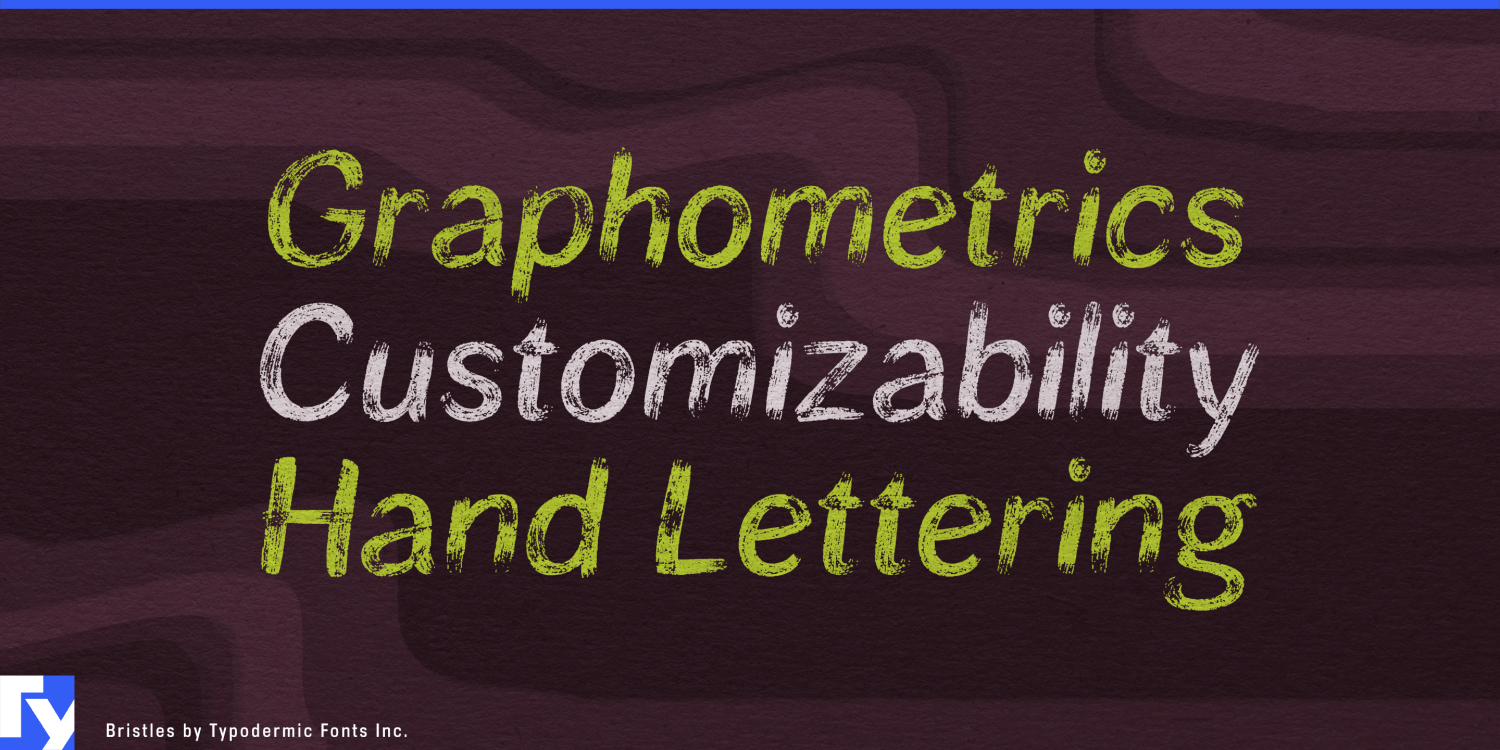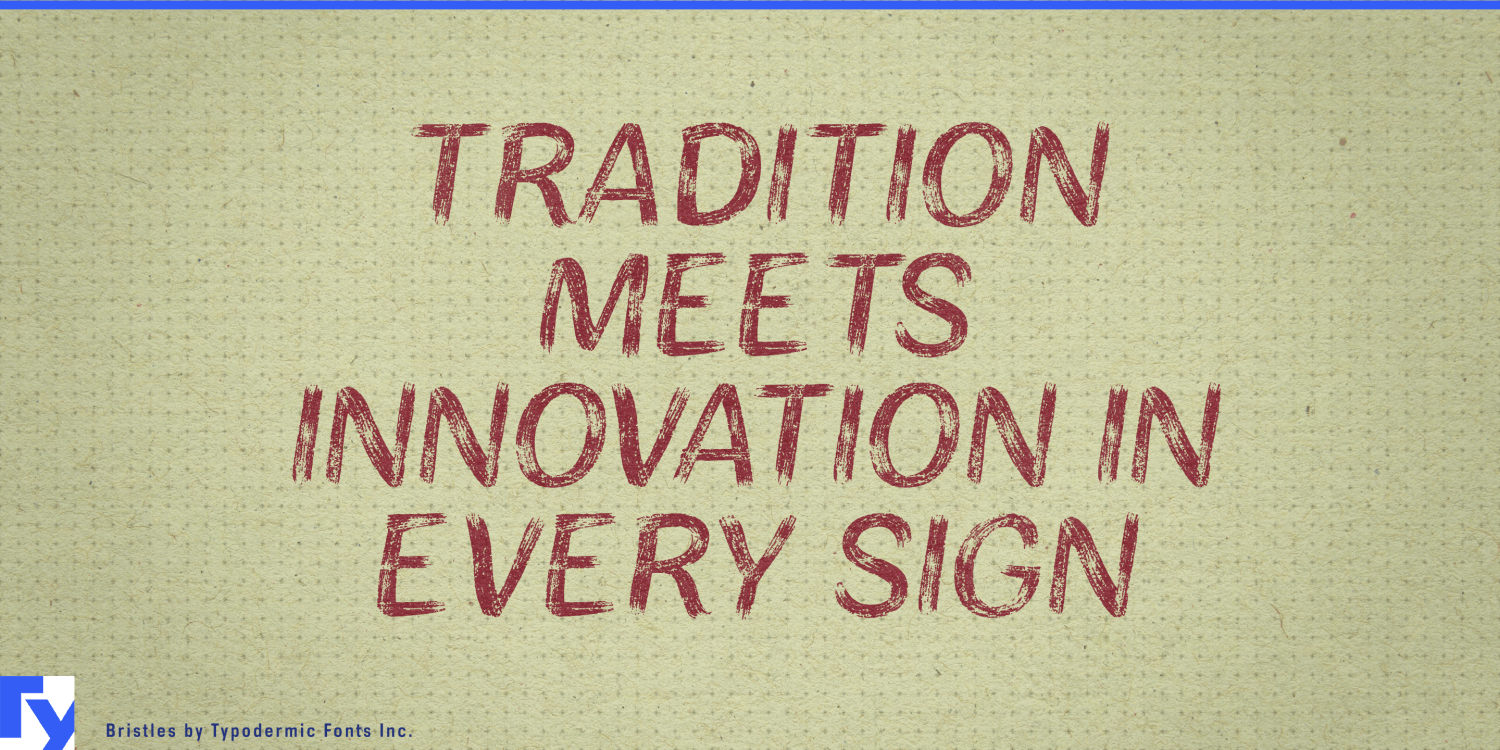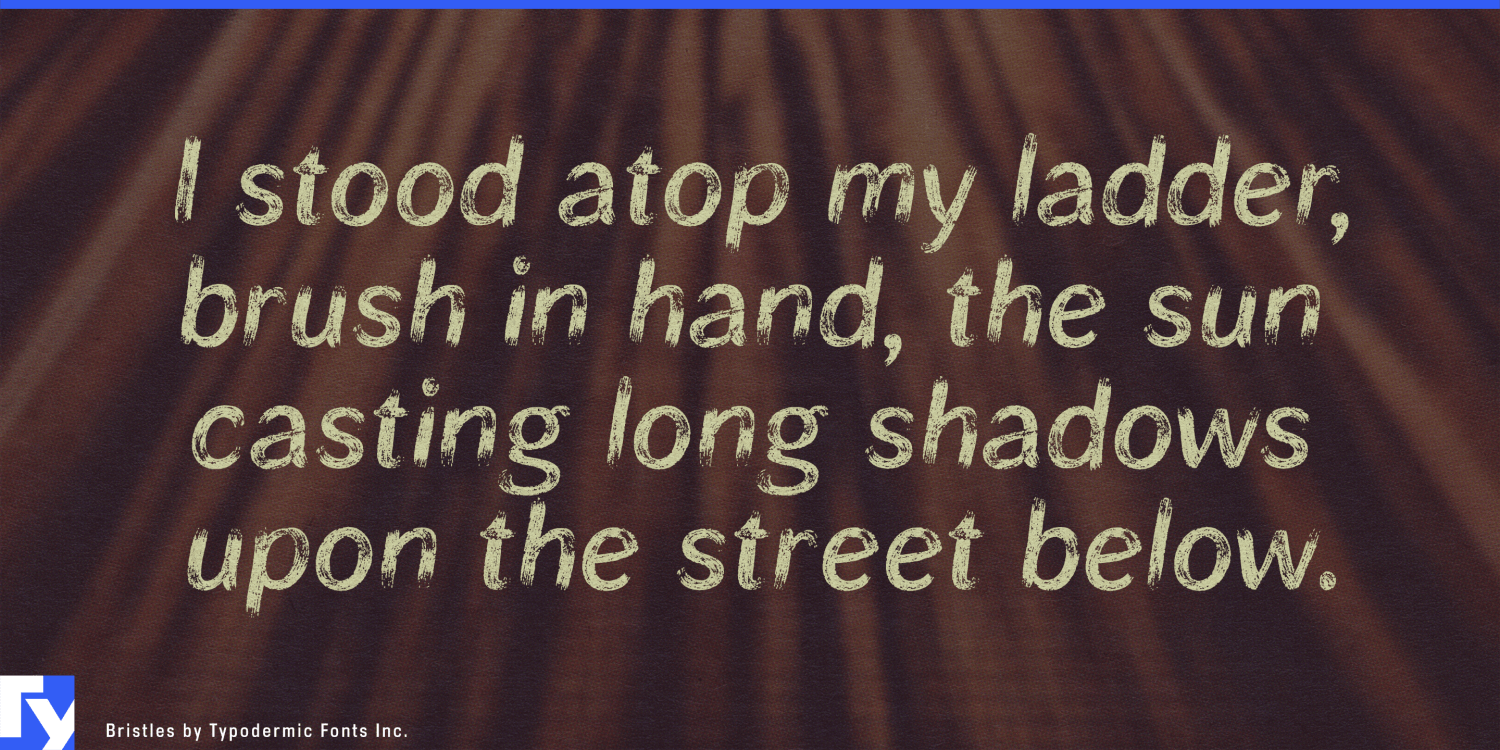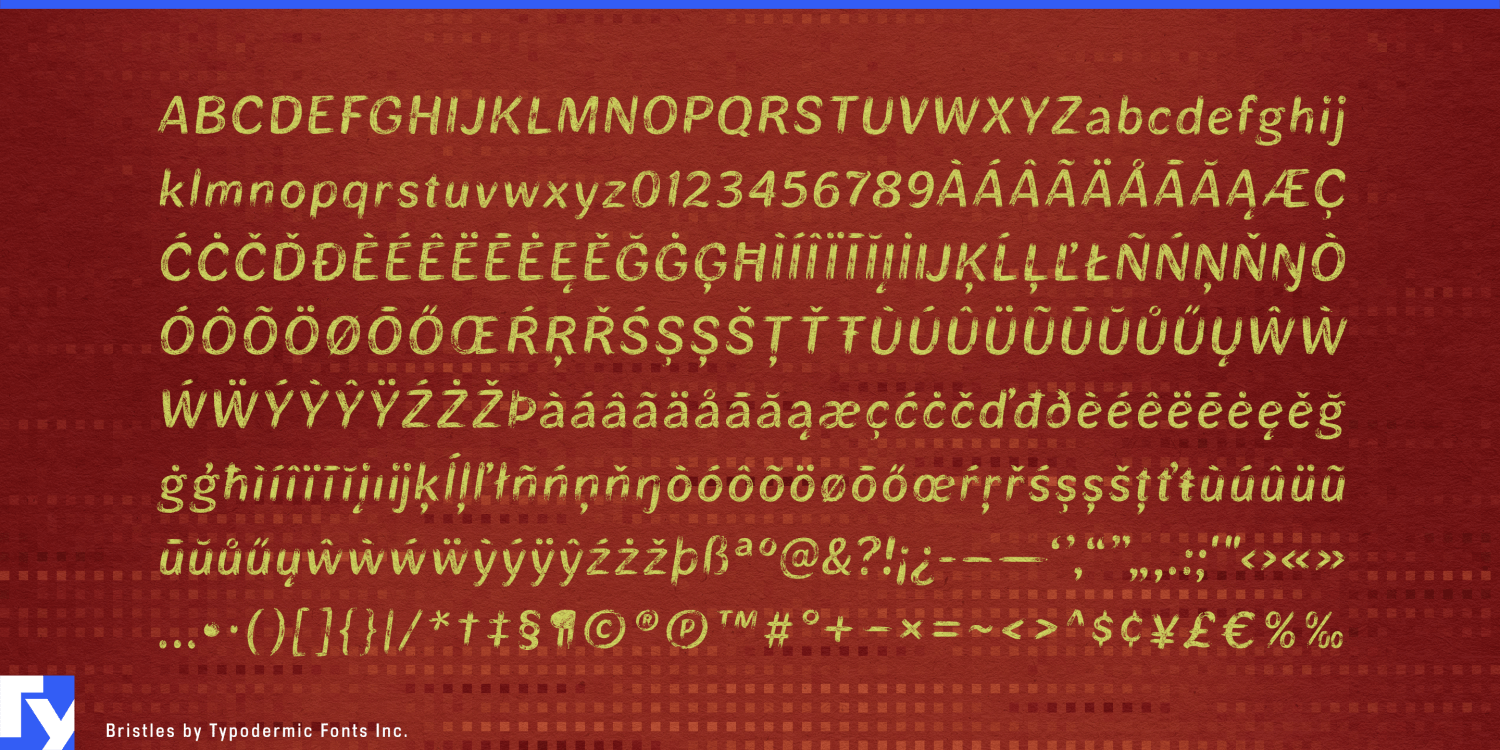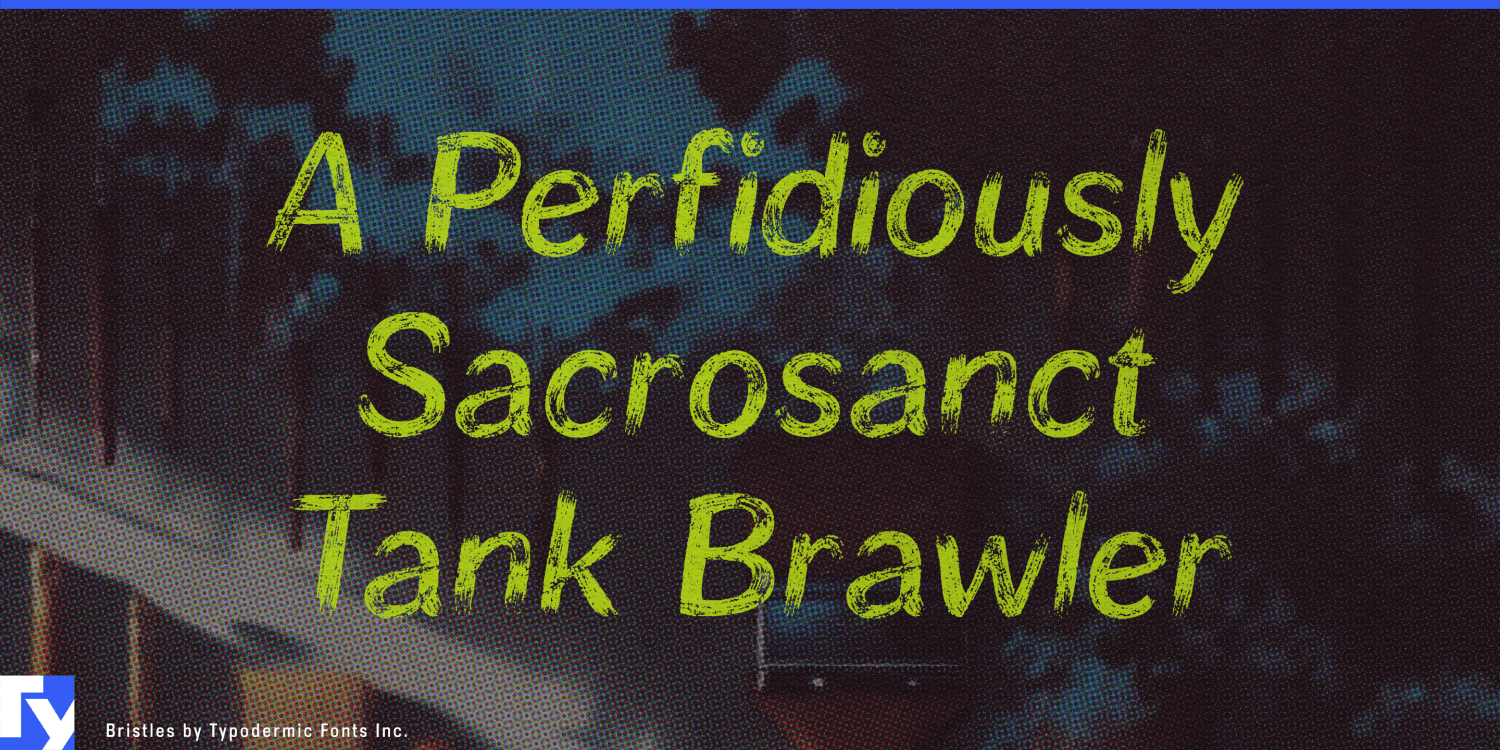
About Bristles
Discover Bristles, a typeface that captures the raw, unfiltered essence of hand-painted signage. This sun-bleached, weathered sans-serif font brings a touch of genuine character to your designs, as if each letter has endured decades of exposure to the…